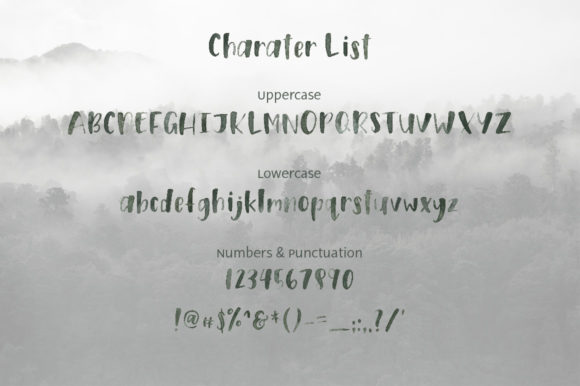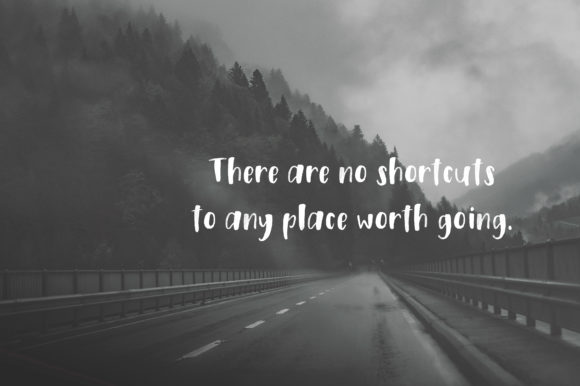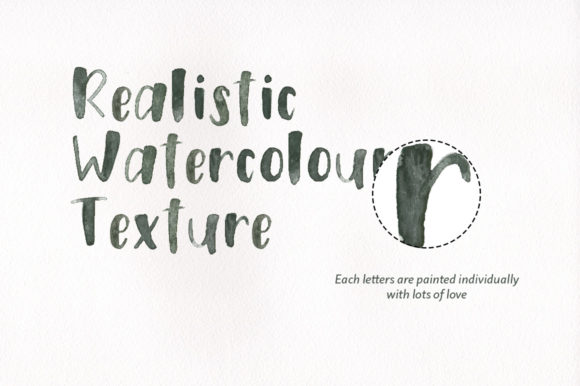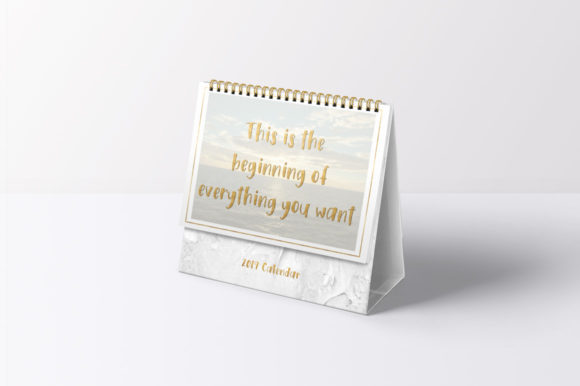
Introduction to Misty Forest Font
Misty Forest is an incredibly bold color font inspired by the humid and mouldy spring in Hong Kong.
Due to the file size limit of coloured font, Misty Forest contains only basic English alphabets, numbers, punctuations and symbols Note.